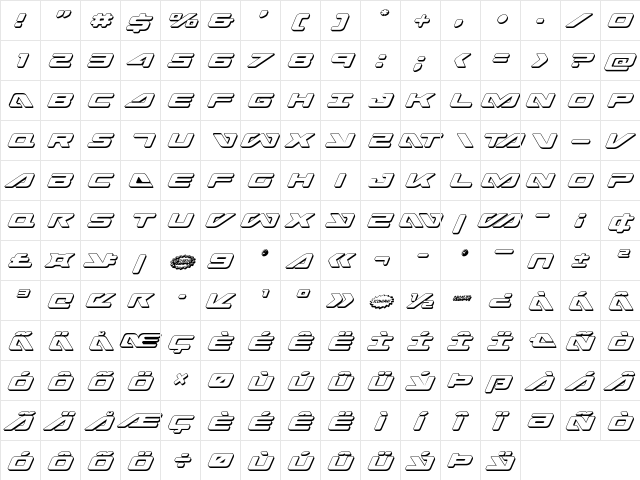
Sea-Dog 3D Italic Italic Font Preview
Sea-Dog 3D Italic Italic
Design Context for Sea-Dog 3D Italic Typeface
Sea-Dog 3D Italic is a composed and adaptable typeface that performs quietly and consistently across a wide range of design contexts. Its italic angle brings a sense of urgency and motion to the letterforms.
Pro Tip: Use Sea-Dog 3D Italic for emphasis, pull quotes, and subheadings where its slanted energy can add rhythm to the layout.